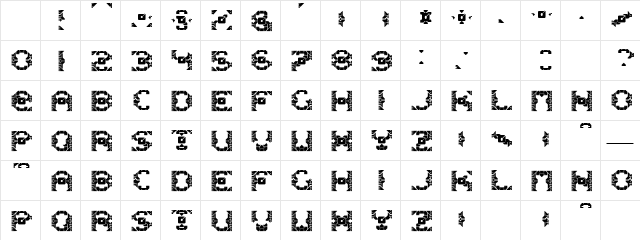
Complete Dazzle Ships Diode glyph index. Displaying only characters natively supported by Dazzle Ships Diode font.
Dazzle Ships is a composed and adaptable typeface that performs quietly and consistently across a wide range of design contexts.